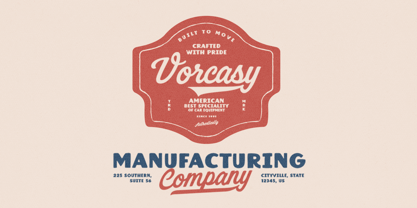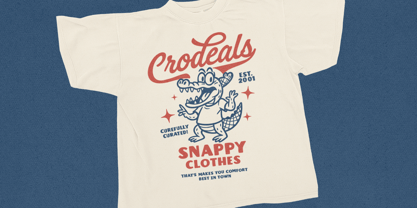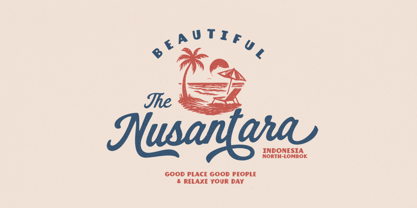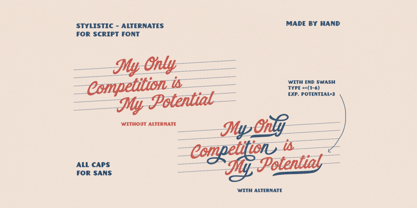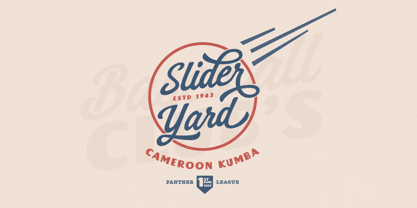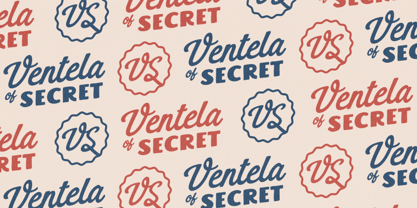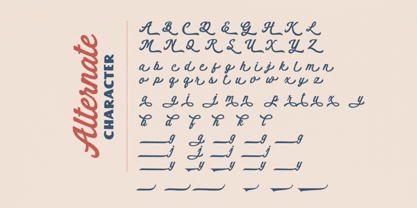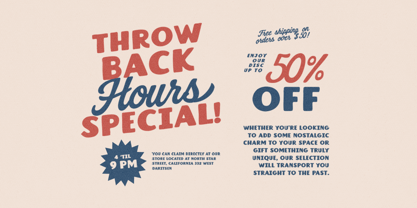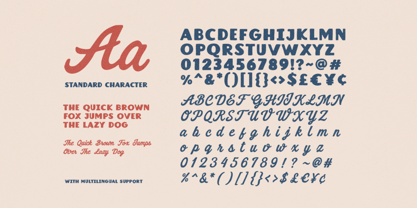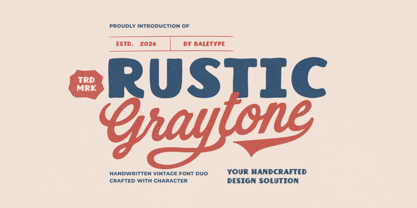
Rustic Graytone
La famille de polices Rustic Graytone a été conçue par Liwa Shidqy et publiée par Bale Type. Rustic Graytone contient 2 styles et options de package familial. En savoir plus sur cette famille
Rustic Graytone is a vintage font duo with bold and hand lettered looks. Comes with bold sans and stylish script, this font duo can be use to make great logotype. You can use this font for any purposes such as branding, logotype, quote, and any project that require retro vibes. The script of this pack contains alternates and ligatures that will make your design more stunning. To add some end swash, just activate the logotype and type in the end of your words with equal + number(1-6) for example Graytone=4. This font duo also support multi language!